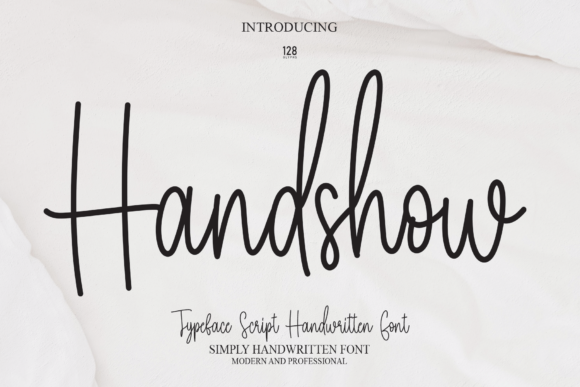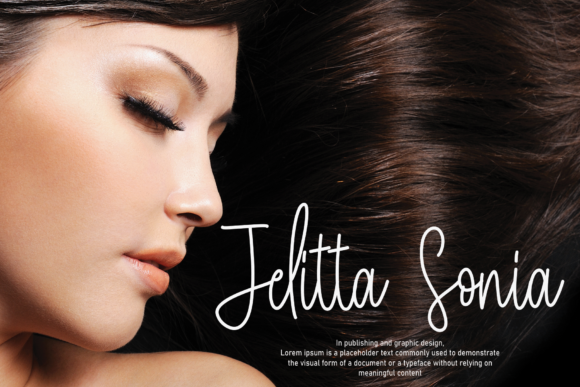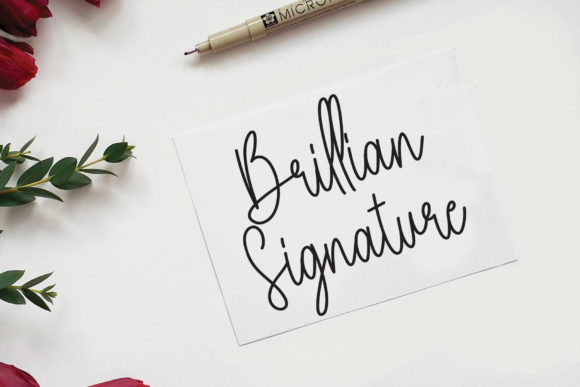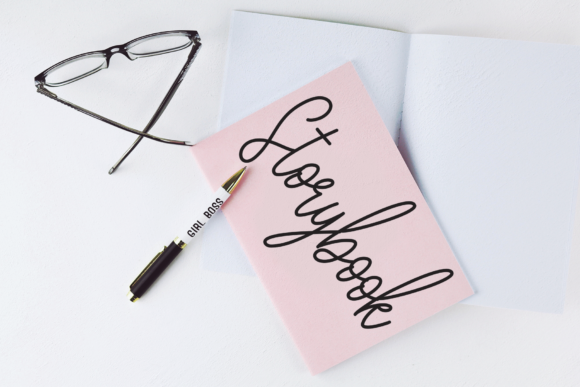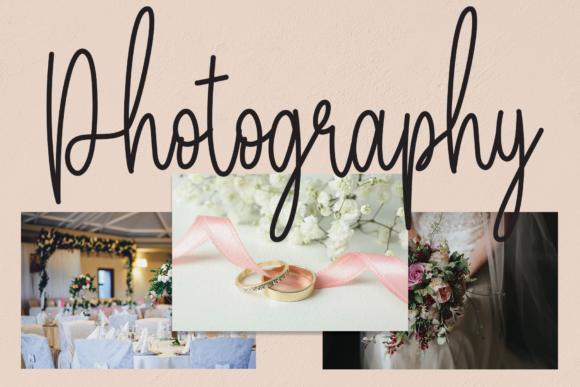
About Handshow Font
Handshow is a lovely and chic script font.
It is perfect for product packaging, branding project, magazine covers, social media, wedding, or just used to express words above the background.